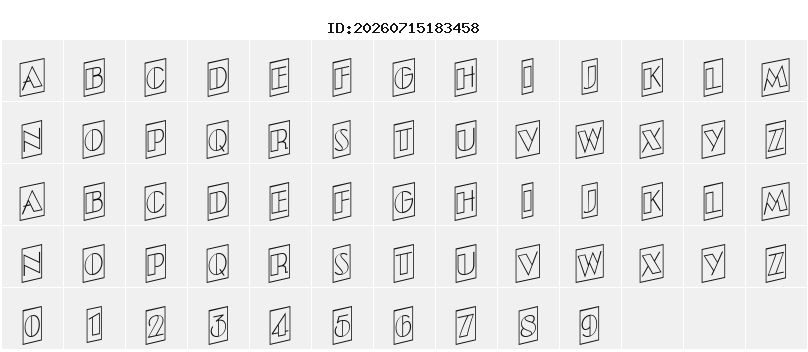
a_BentTitulCmUpOtlNr Preview
About a_BentTitulCmUpOtlNr.ttf
a_BentTitulCmUpOtlNr.ttf is a modern, elegant sans-serif font designed for ultimate readability and visual harmony. Perfect for branding, headlines, web design, and print materials.